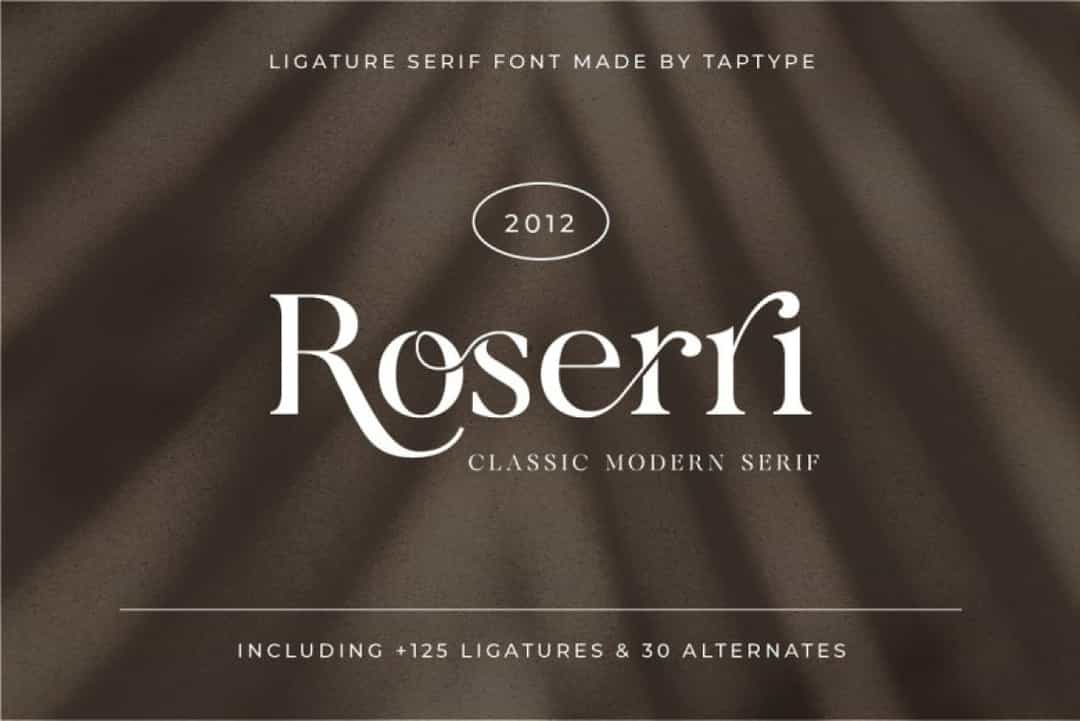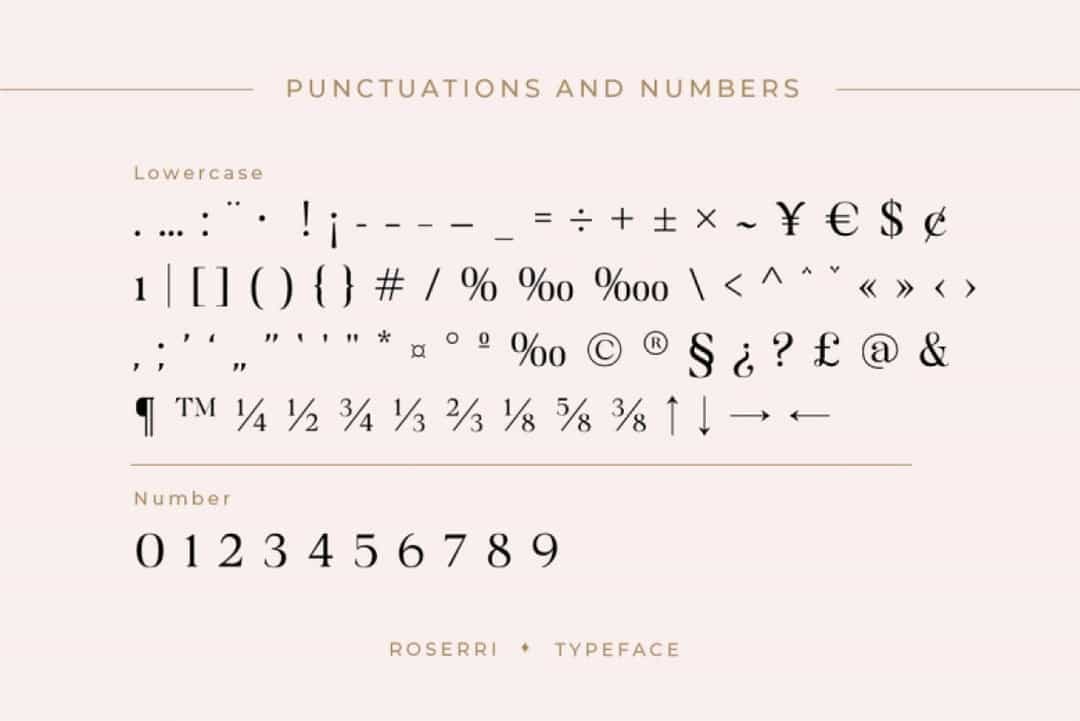
Roserri Serif font is an eye-catching modern font with rich serifs that’s easy to modify for designs ranging from wedding invitations and branding materials, cards and ideas.